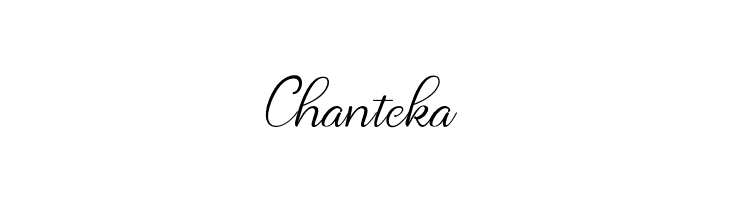
An elegant, cursive font with fluid, graceful strokes.
A flowing, elegant cursive font with graceful loops and smooth connections.
An elegant, flowing script font with thin, elongated letterforms and graceful curves.
An elegant, flowing script font with graceful curves and sophisticated flourishes.
An elegant script font with flowing, cursive characters and graceful swashes.
An elegant, flowing script font with graceful curves and sophisticated swashes.
A sophisticated and flowing font with thin, graceful strokes and a slight slant.
A graceful script font with elegant, flowing strokes and sophisticated style.
An elegant script font with graceful, flowing lines and sophisticated style.
An elegant, flowing script font with graceful curves and loops.